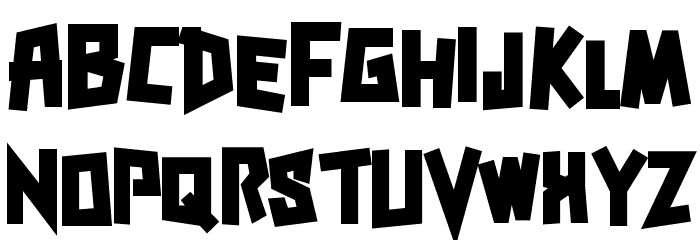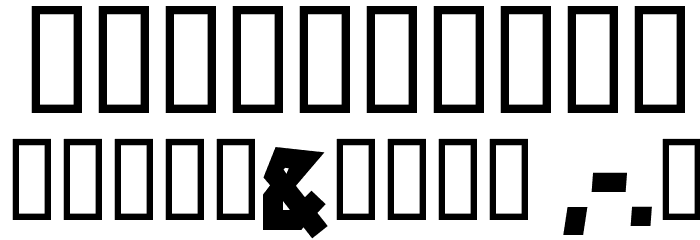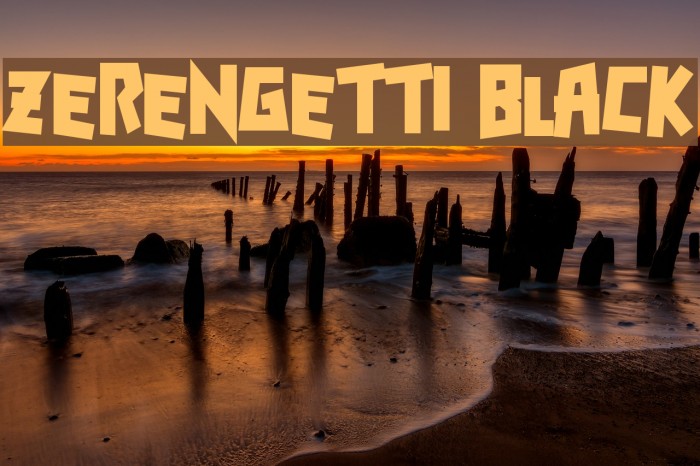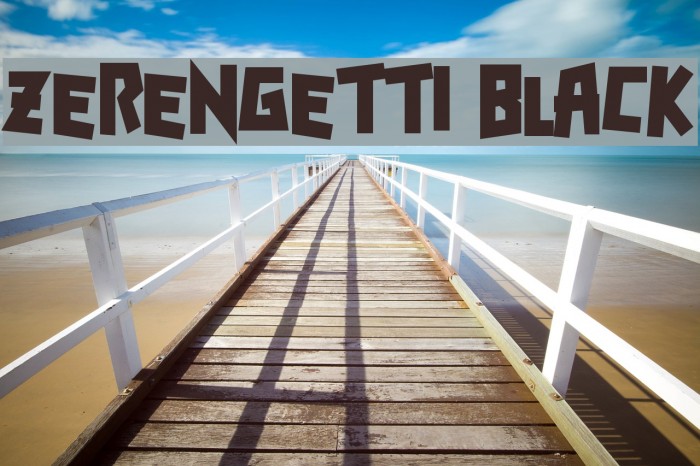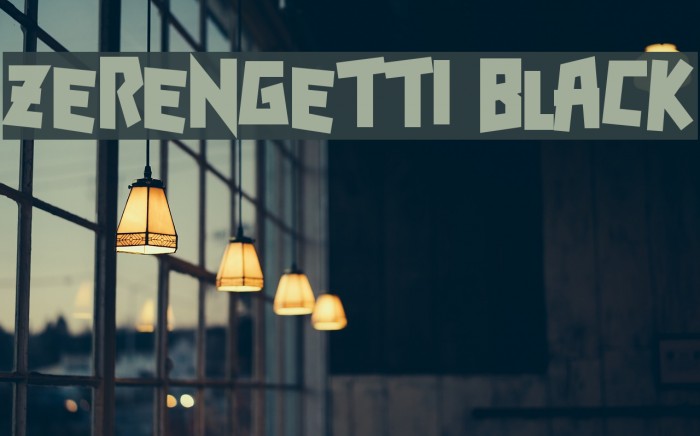
Zerengetti Black Font
This font features a bold and dynamic style with a strong geometric influence. The characters have a blocky and angular appearance, giving them a modern and edgy look. The uppercase letters are particularly striking, with sharp angles and varying line thicknesses that create a sense of movement and energy. The lowercase letters maintain the same boldness and angularity, ensuring consistency throughout the typeface. The numbers and special characters are designed to match the overall aesthetic, making this font suitable for projects that require a strong visual impact.
A bold, angular font with a modern and edgy geometric style.
- Proposed Projects: Ideal for posters, logos, video game graphics, and any project needing a bold, impactful typeface.